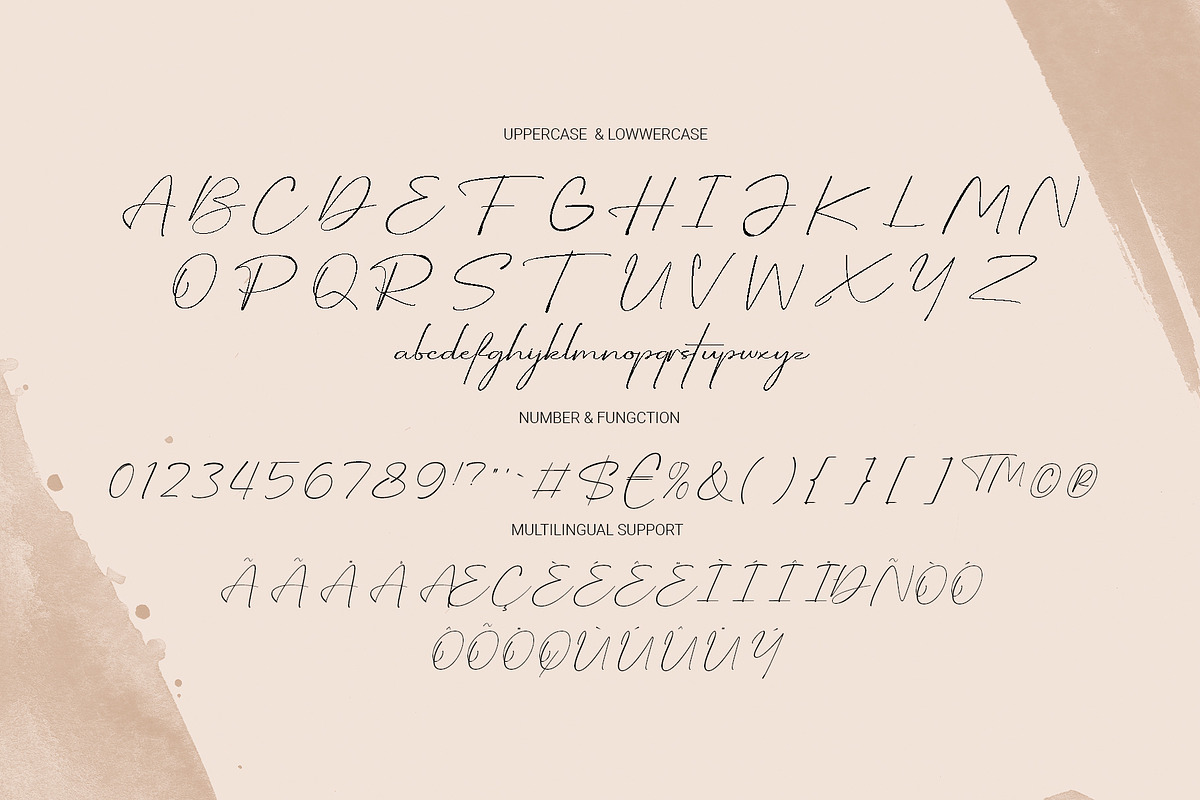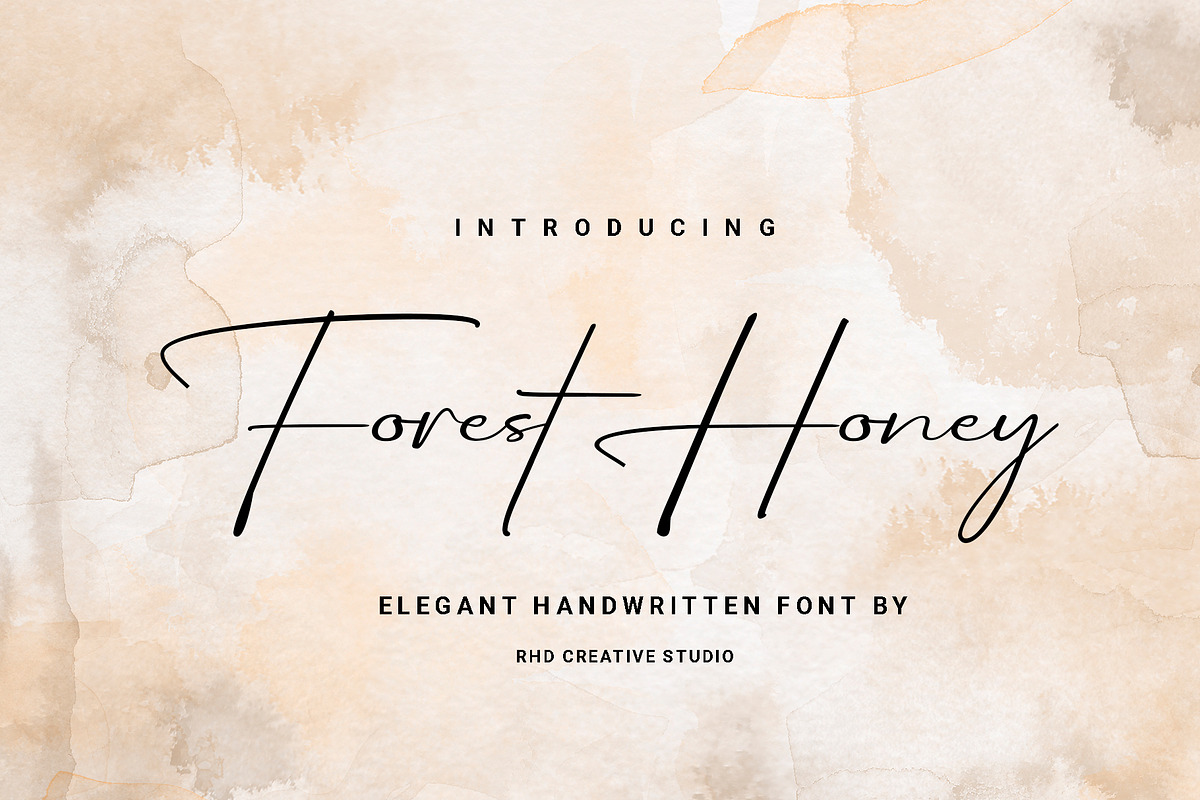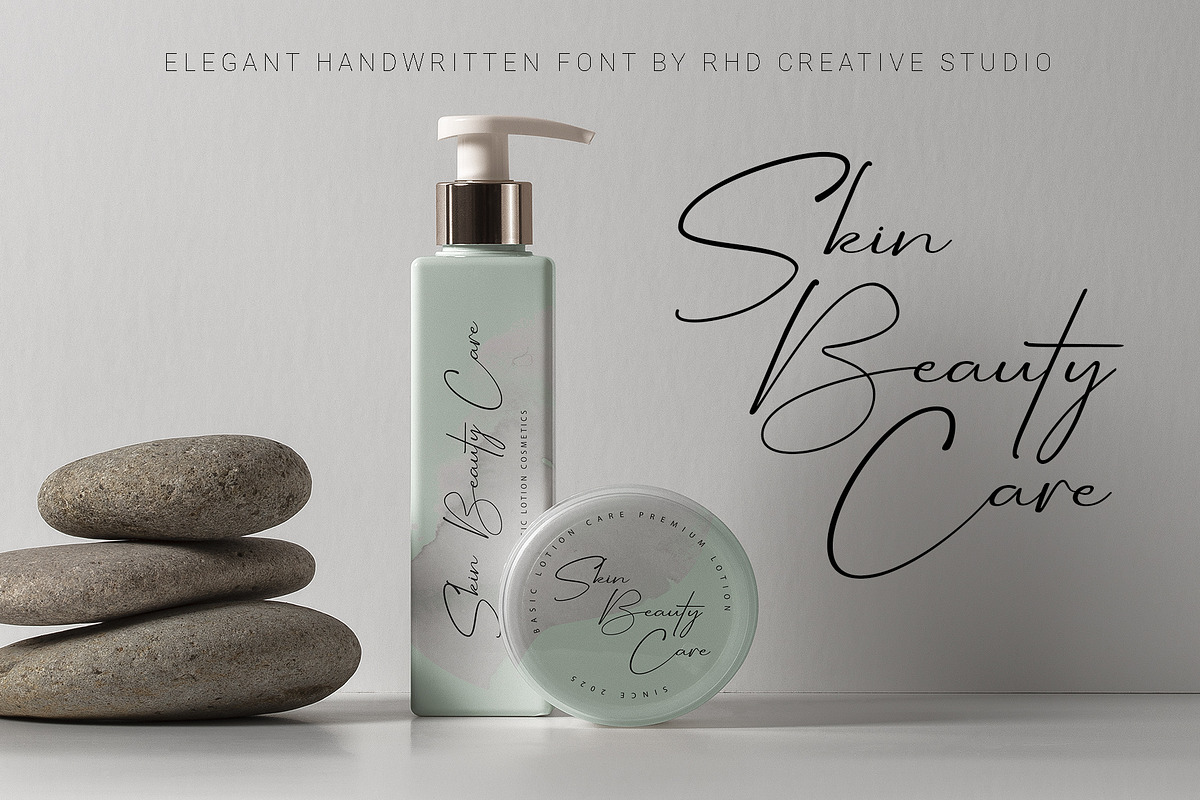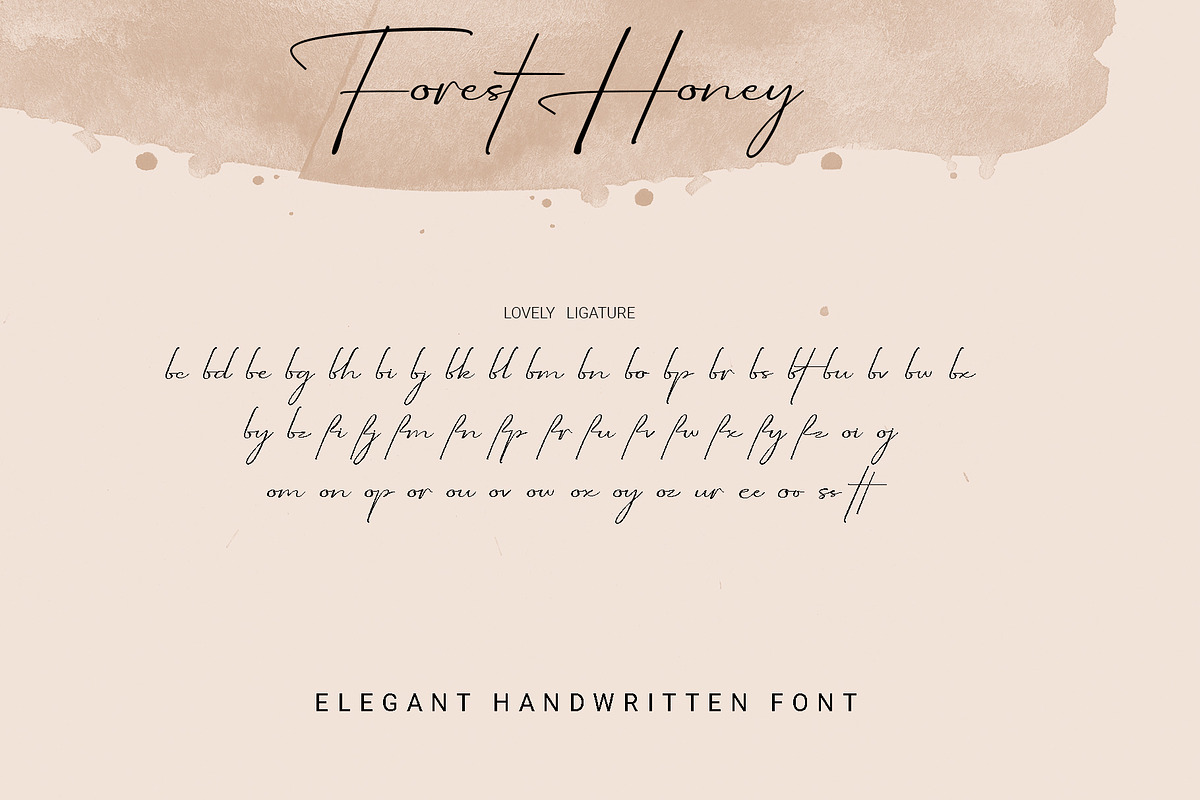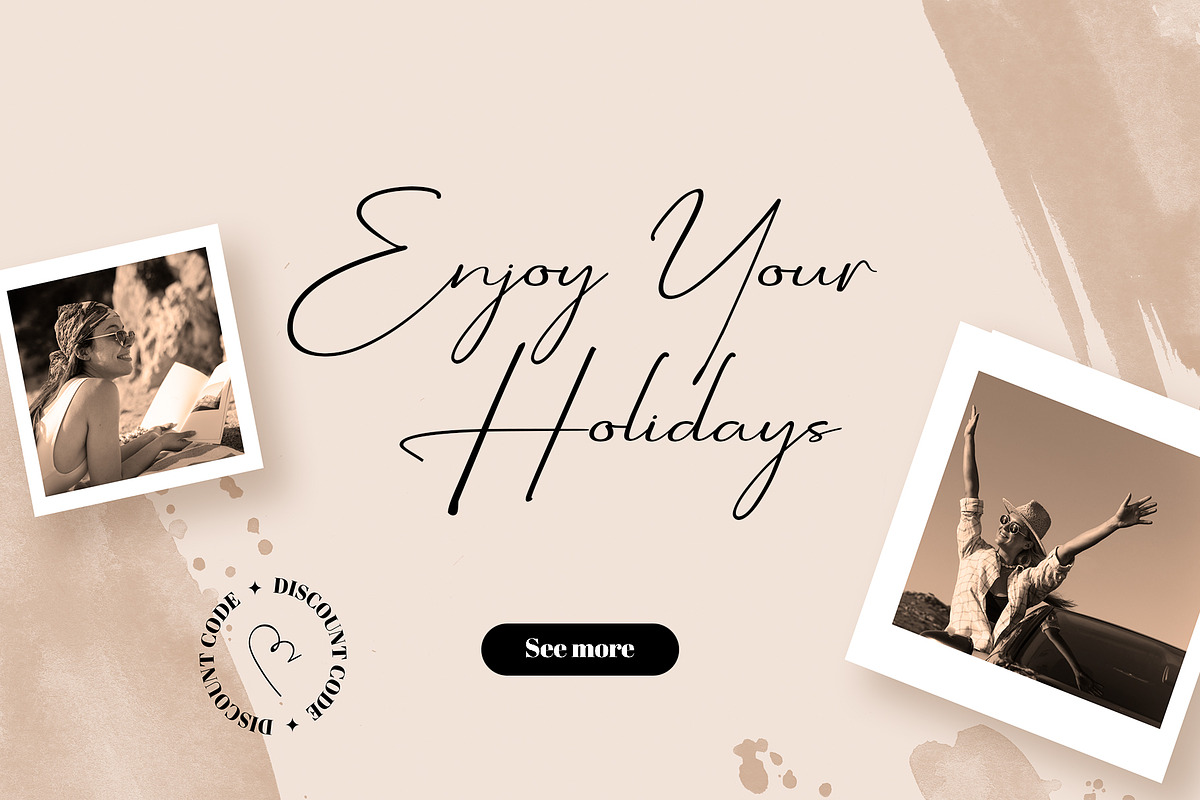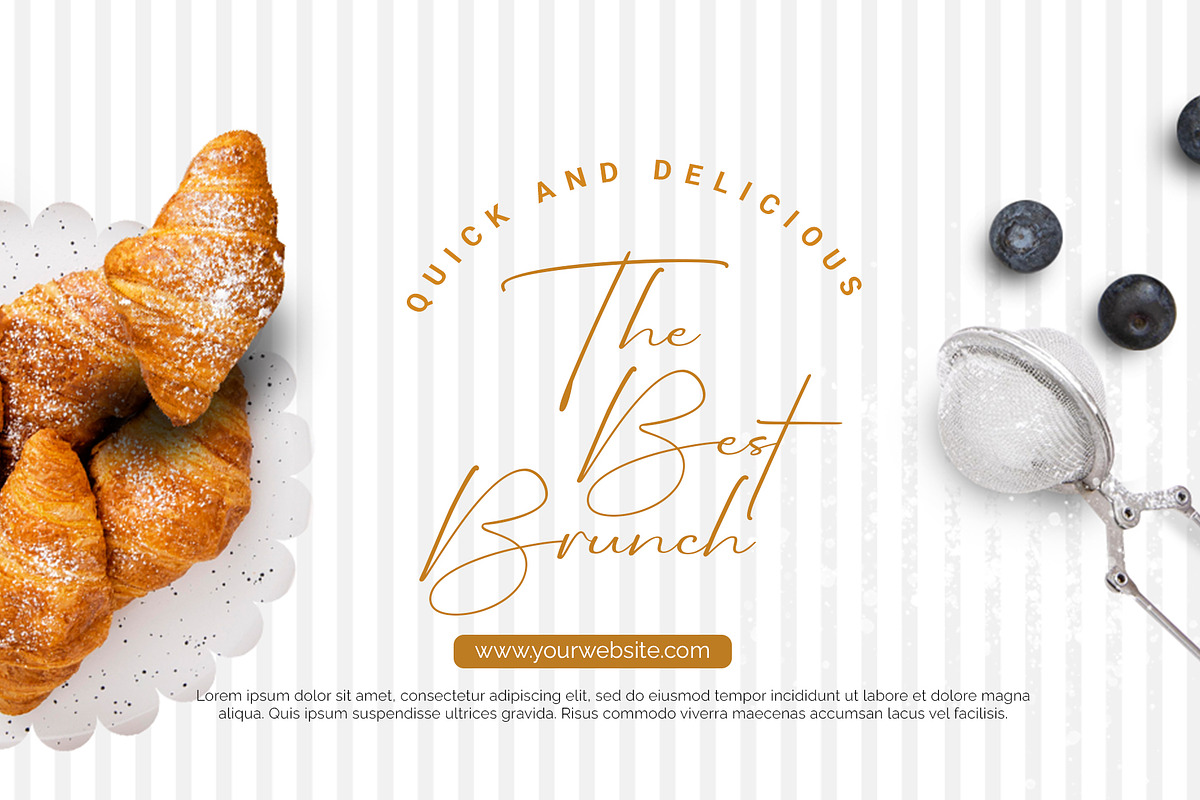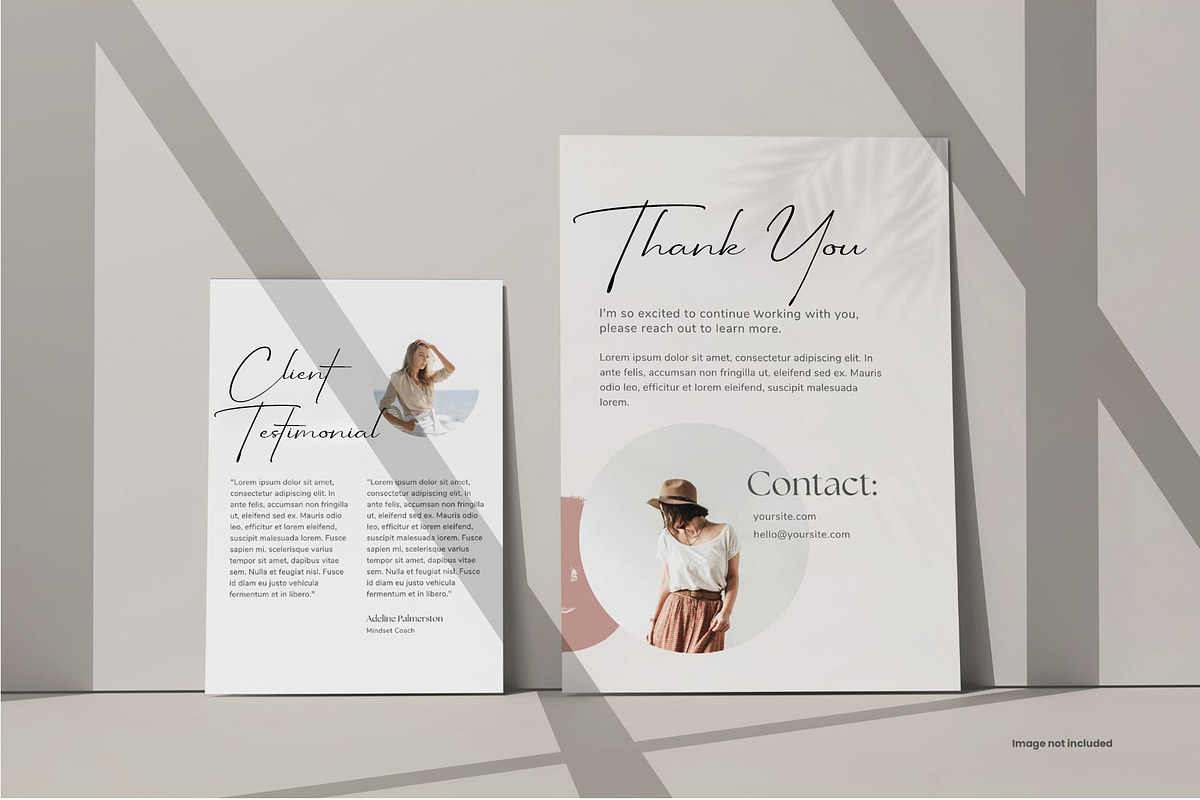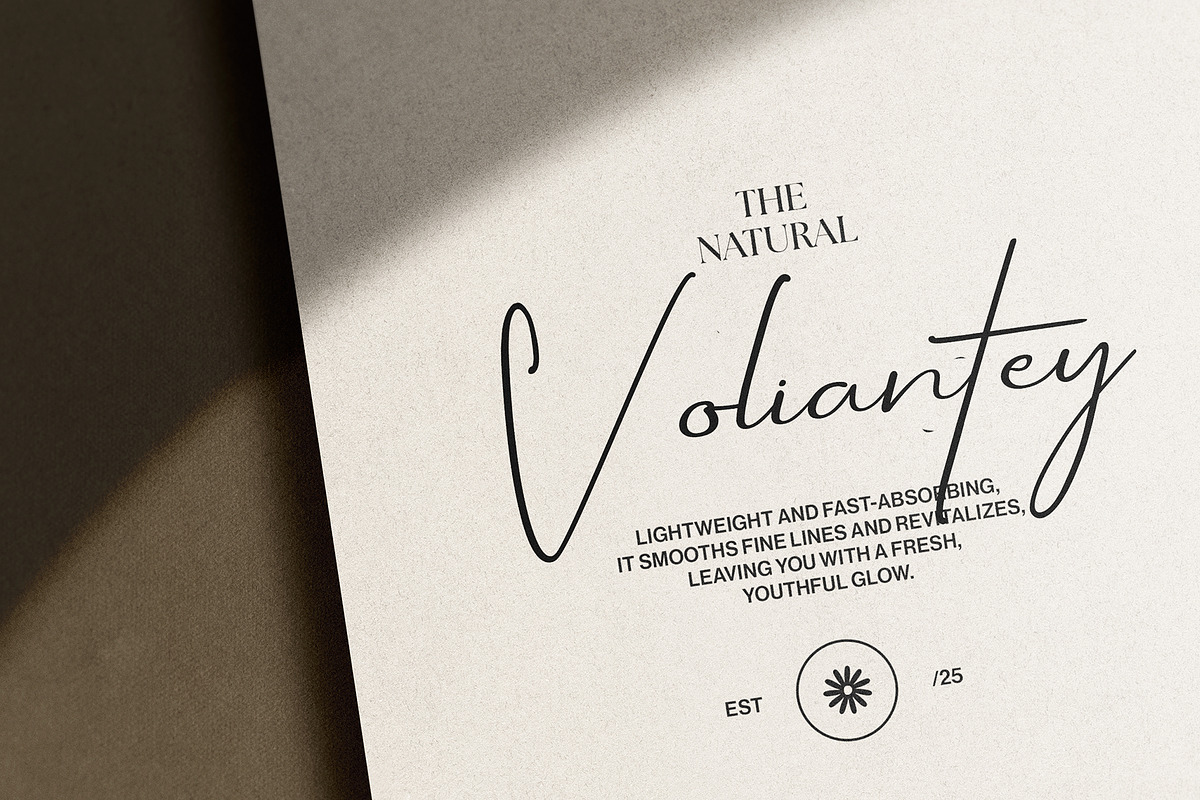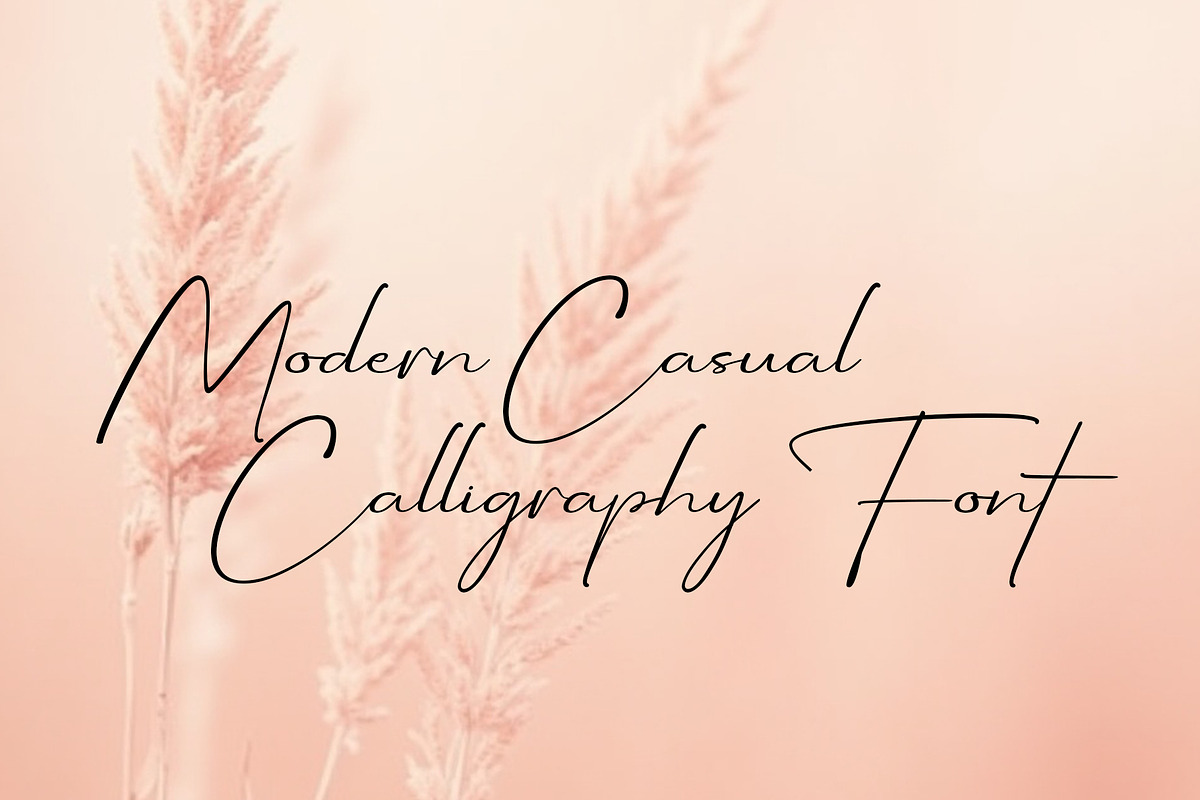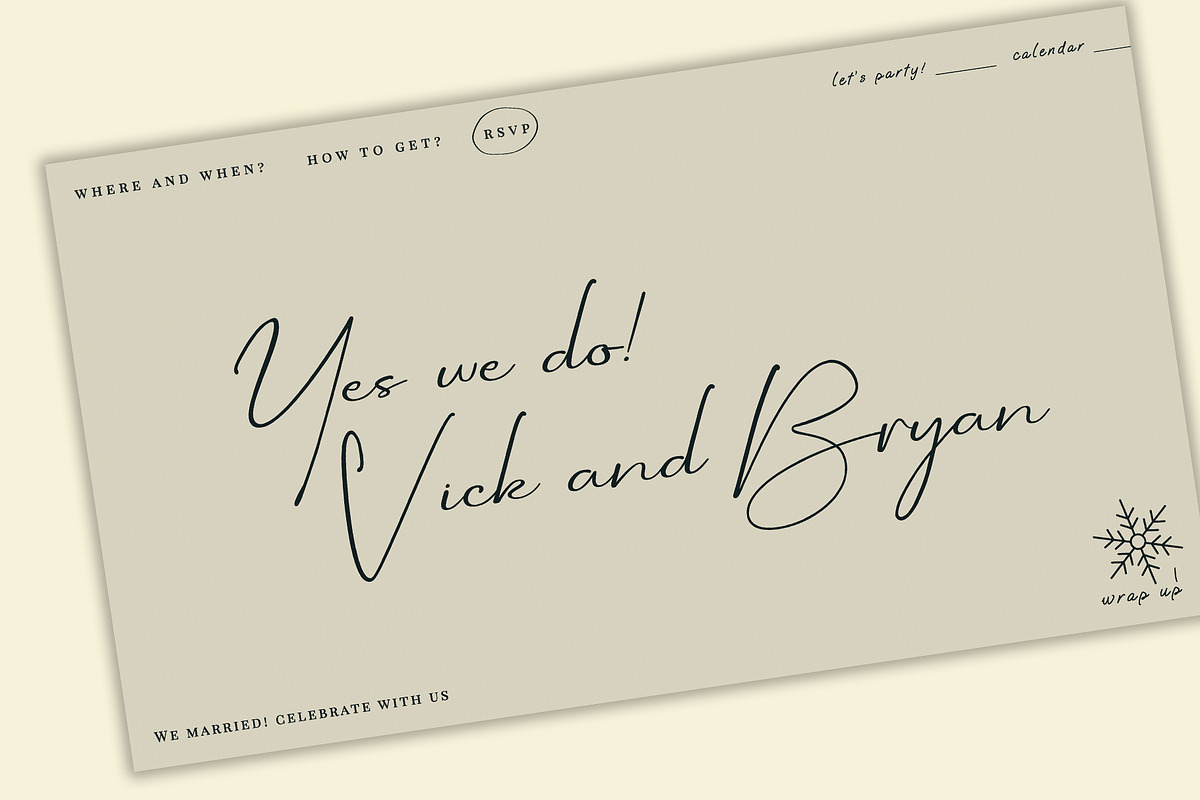
Forest Honey - Elegant Handwritten
Hello everyone, I would like to introduce Forest Honey - Elegant Handwritten Font.
Forest Honey - Elegant Handwritten Font with Handmade character. Forest Honey - Elegant Handwritten Font , Modern font to make your design project stand out! Forest Honey a perfectly choice for any creative endeavor, creating, modern, chic, lifestyle design such as logotype, title, cover, branding, invitations, wedding designs, display and magazine, social media posts, advertisements, printed quotes, product packaging, corporate brand, product designs, labels, photography, watermarks, special events and any other project with modern touch.